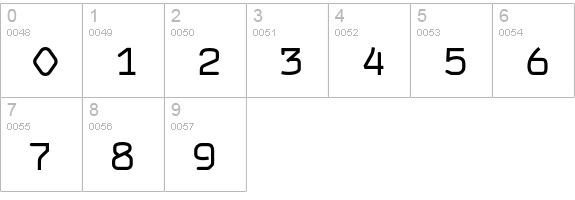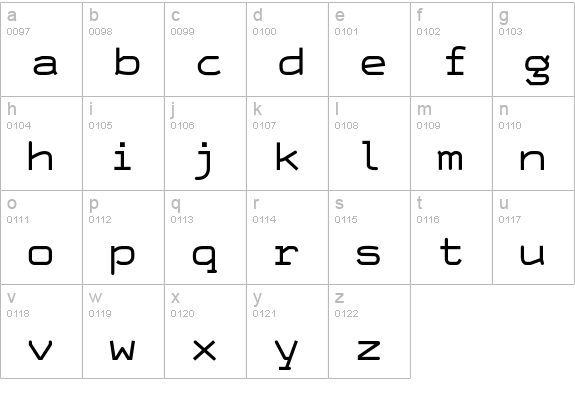
HardCase-Light Font Details
HardCase-Light is a refined, elegant variant in the HardCase typeface family \xE2\x80\x94 well suited to elegant body text, refined sub-headings, and luxury branding.
Introducing HardCase-Light, a versatile and dynamic font that exudes strength and resilience. This unique typeface captures the essence of boldness and durability, making it the perfect choice for projects that require a strong visual impact. With its sleek and sleek design, HardCase-Light is sure to make a lasting impression. The clean lines and sharp edges of each letter create a sense of precision and confidence, making your message stand out with clarity and power. But what truly sets HardCase-Light apart is its incredible versatility. Whether you're designing a logo, crafting a headline, or working on a poster, this font adapts effortlessly to any project, enhancing its impact and delivering your message with utmost effectiveness. And the best part? HardCase-Light is available for free download at FontsMarket.com. We believe that great design should be accessible to everyone, and that's why we're thrilled to offer this amazing font without any cost. So go ahead and unleash your creativity with HardCase-Light, and watch your designs come to life with a touch of boldness and sophistication. Download HardCase-Light now, exclusively at FontsMarket.com, and experience the power of this remarkable font firsthand. Don't miss out on the opportunity to elevate your designs with a typeface that combines strength, versatility, and an unbeatable price – all in one package.